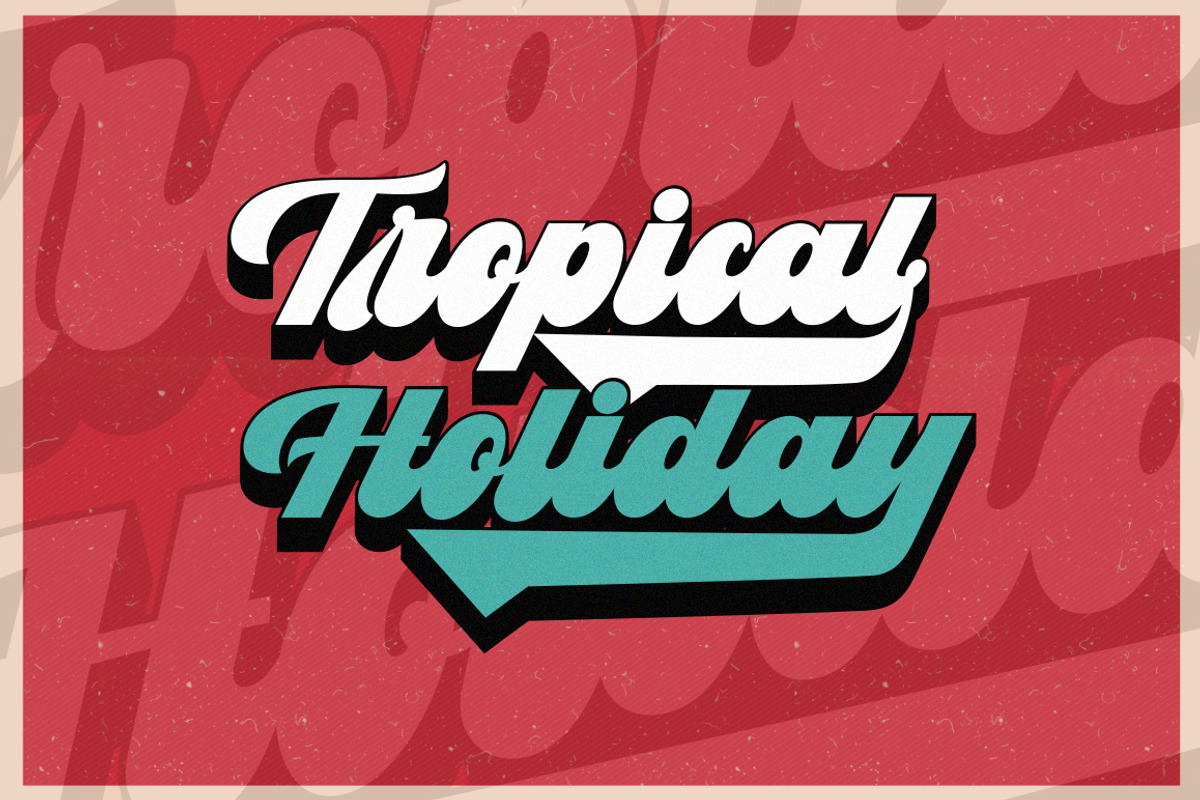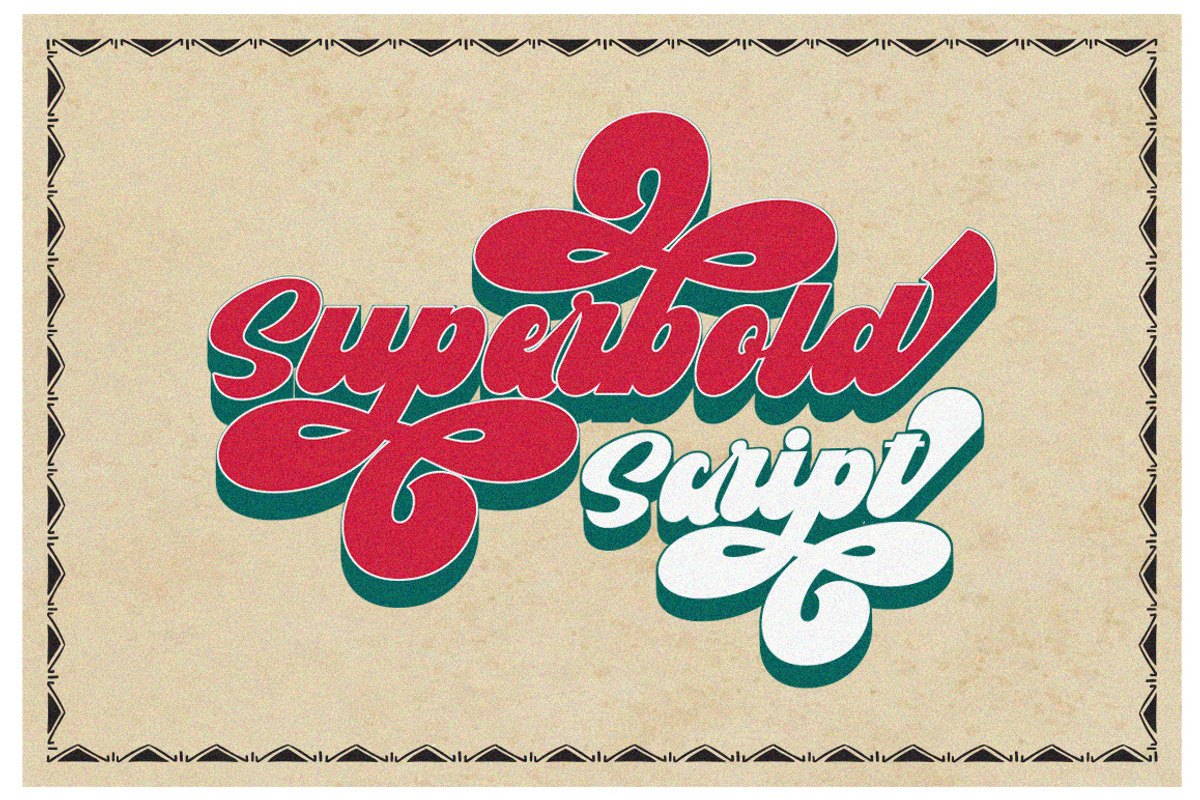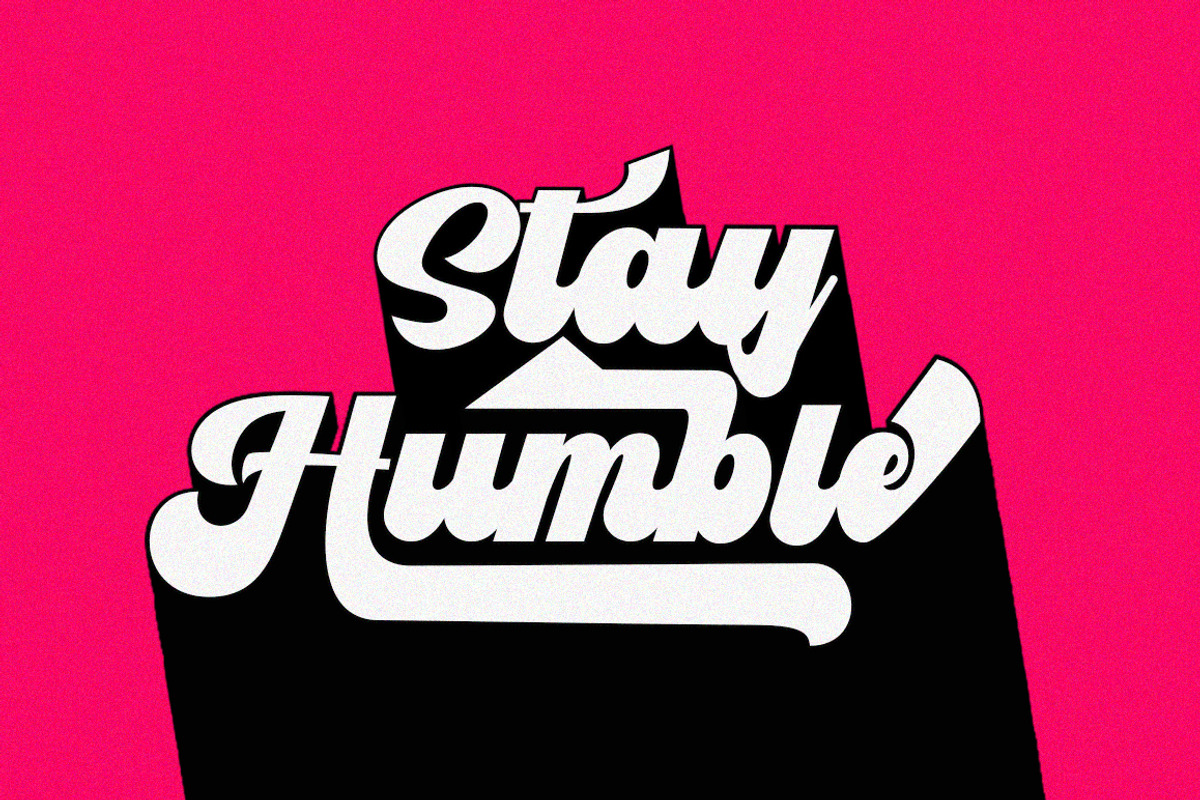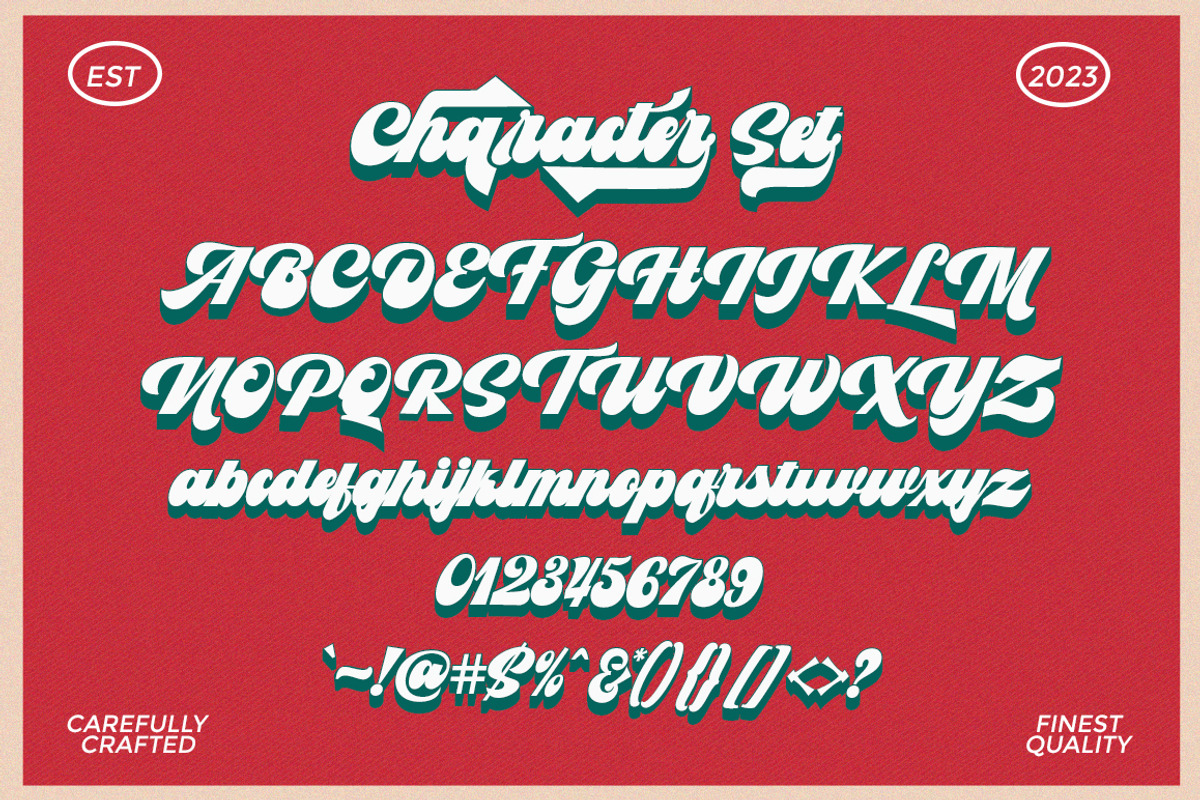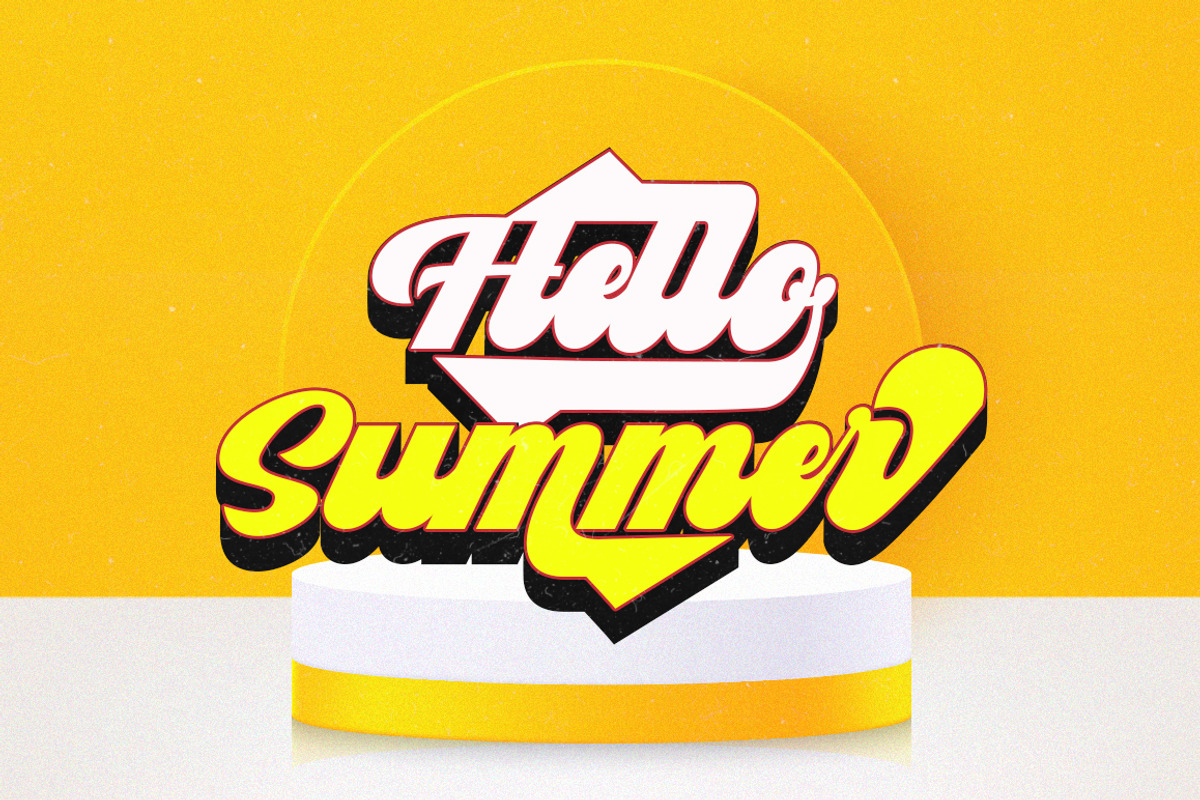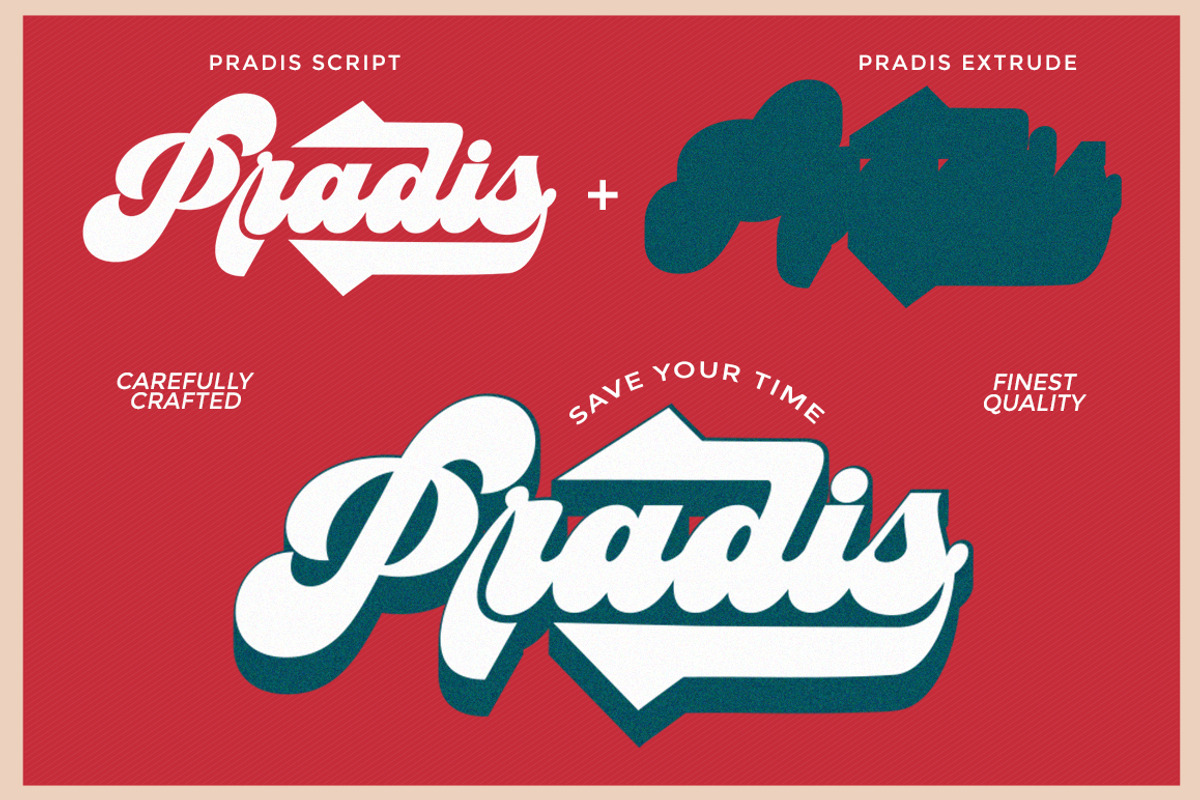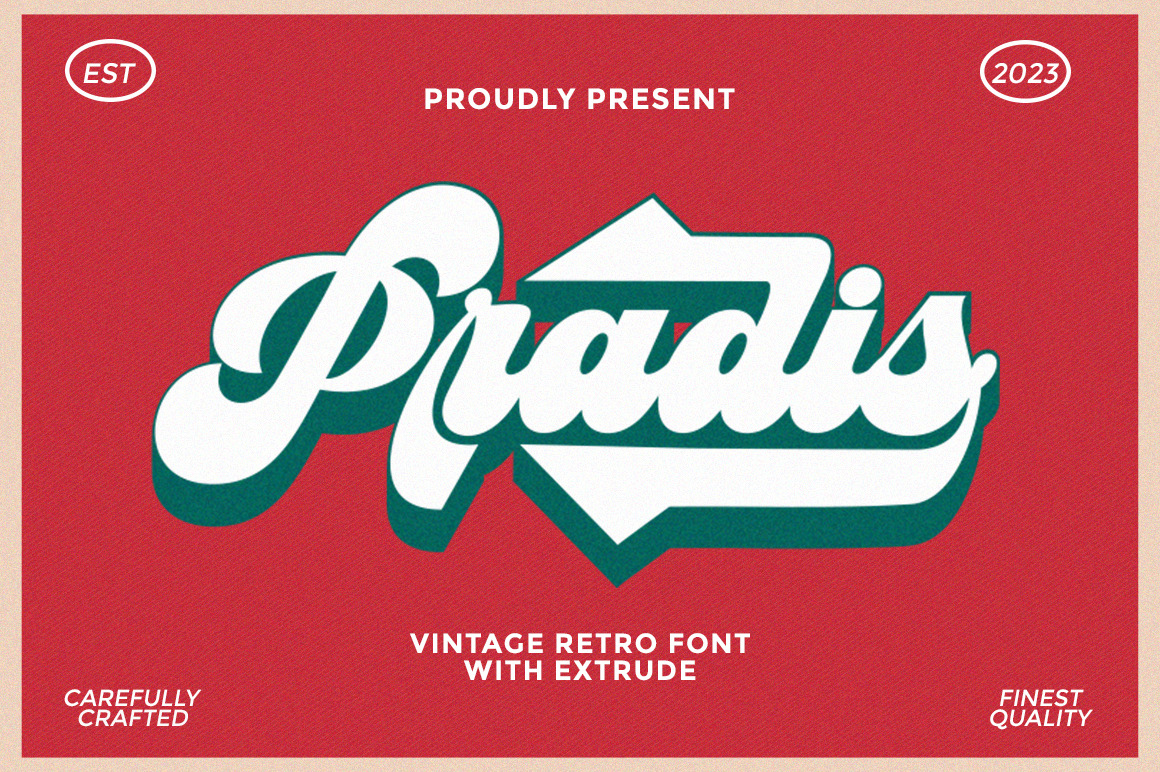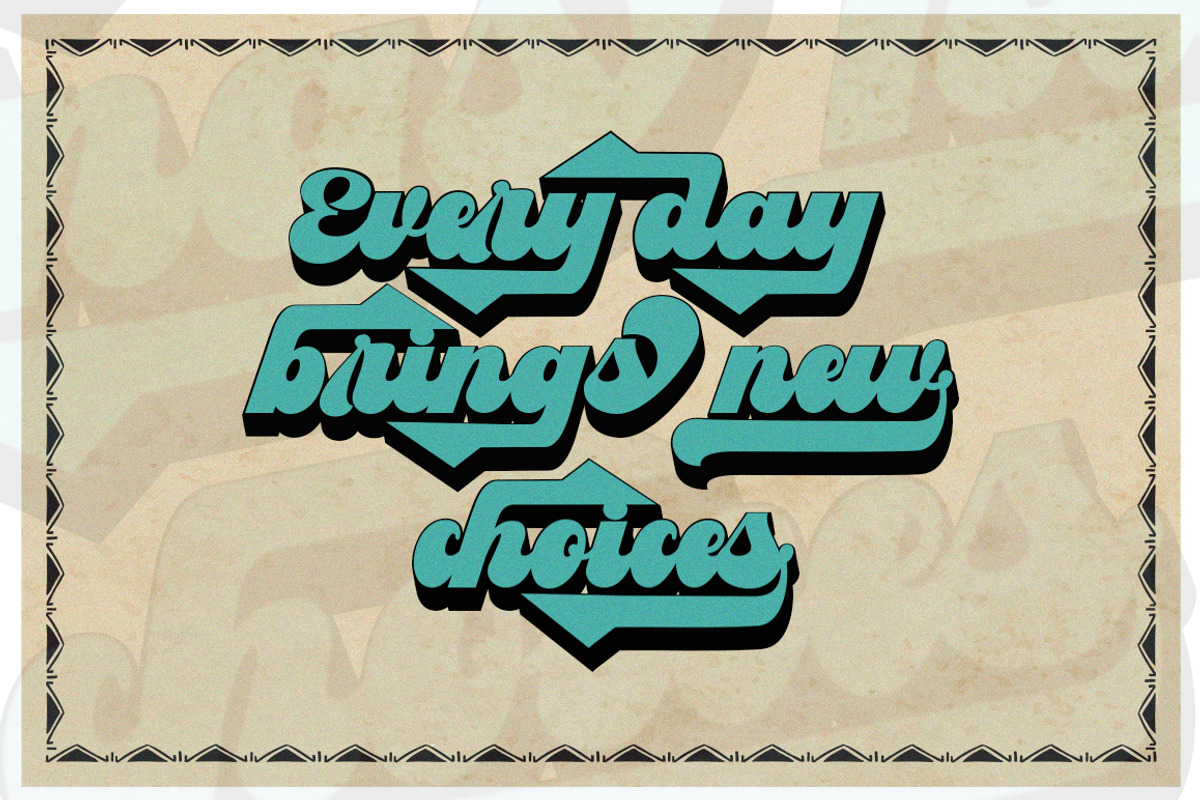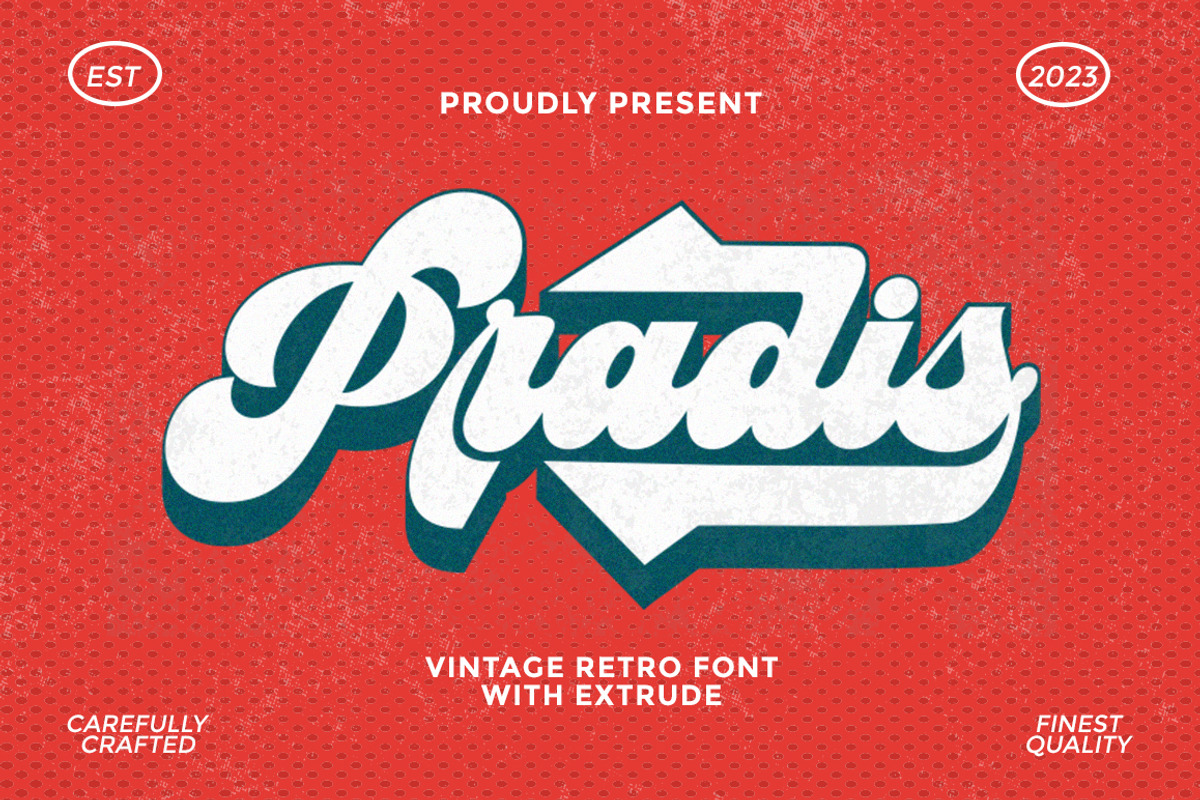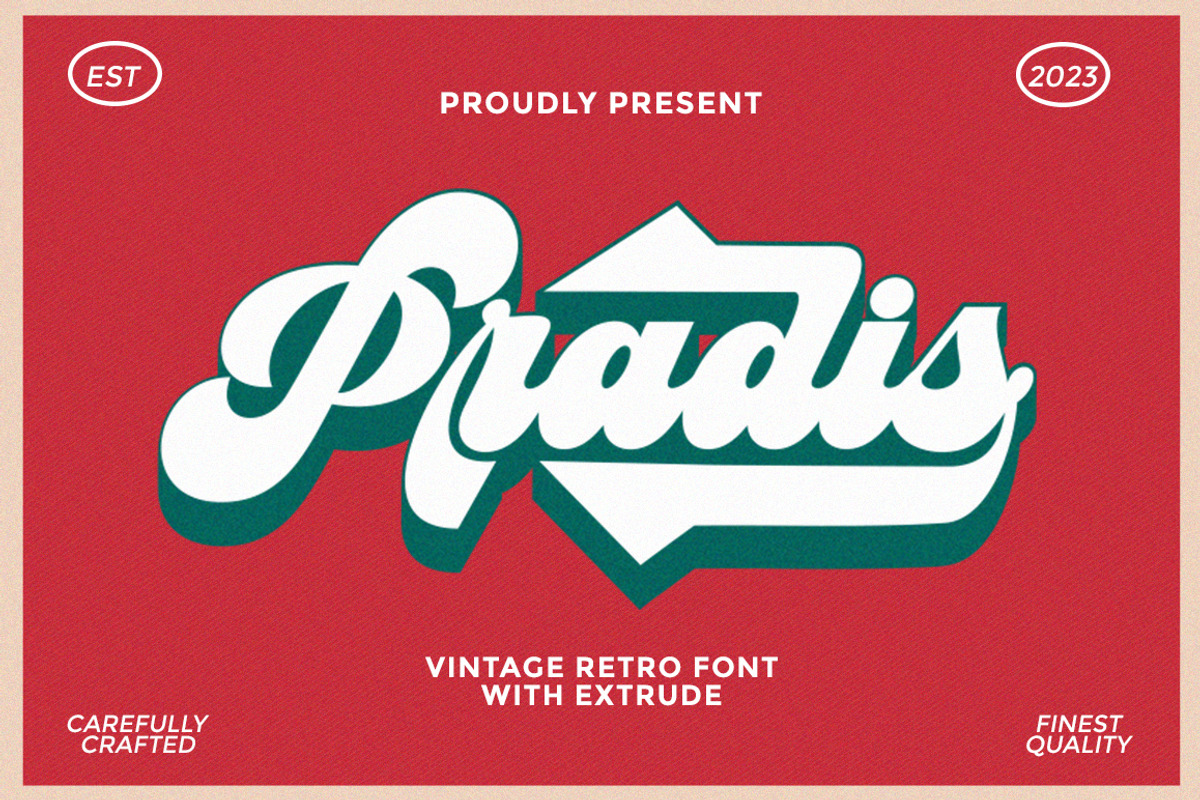
Vintage Retro Font - Pradis
Vintage Retro Font - Pradis is an urban retro font with the style like a logotype lettering.
was created to help you designing logotype or lettering style for your Brand or your clients.
it has an extensive lingual support, covering European and Asian Latin scripts.
The font contains all characters you'll ever need, including all punctuation and numbers.
Alternates,